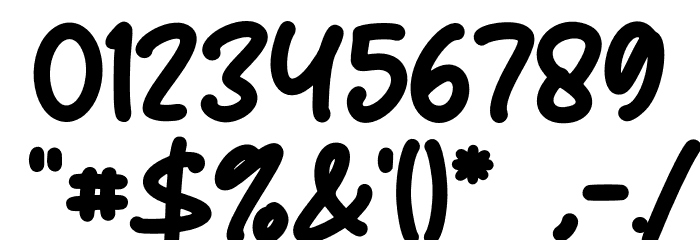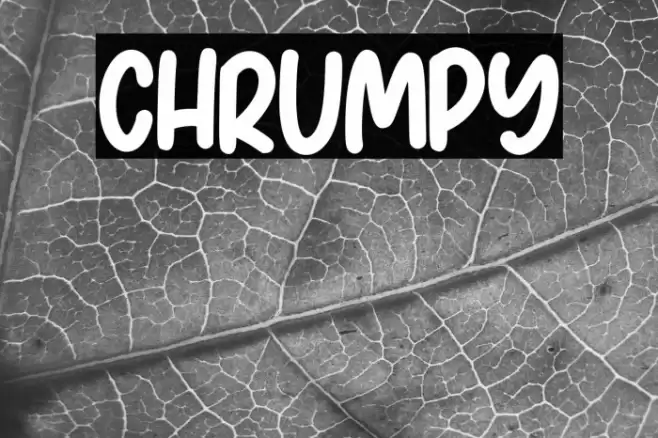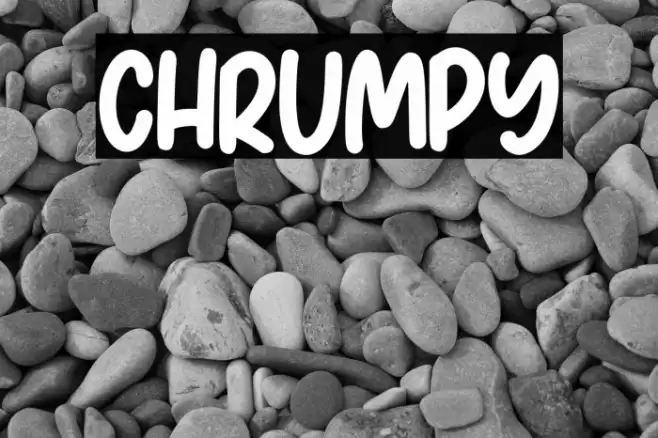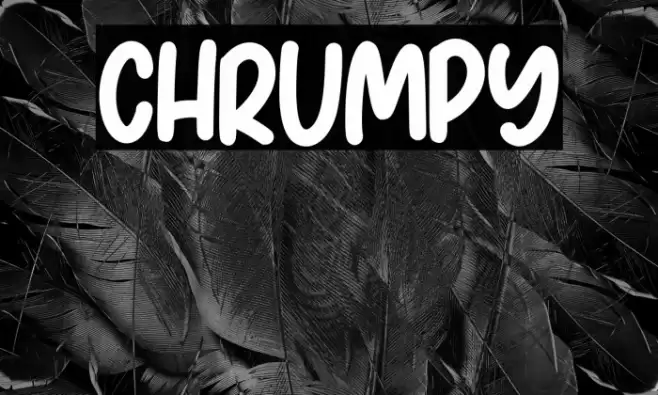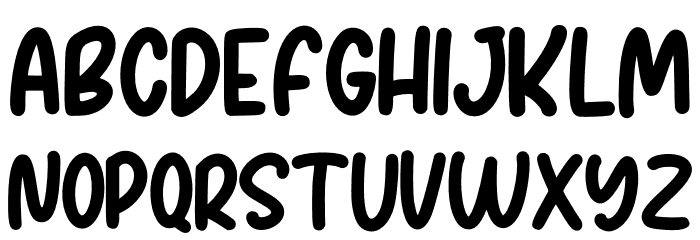
Chrumpy Font
Chrumpy Description
This font features a playful and bold handwritten style, characterized by its thick, rounded strokes and smooth curves. The letters have a consistent weight, giving them a uniform appearance that enhances readability. The uppercase and lowercase letters maintain a cohesive look, with slightly exaggerated curves that add a whimsical touch. The numbers and special characters follow the same design principles, ensuring a harmonious overall appearance. This font exudes a friendly and approachable vibe, making it suitable for a variety of creative projects.
| Overall Style | Playful |
| Proposed Projects | Ideal for children's books, playful branding, greeting cards, and casual invitations. |